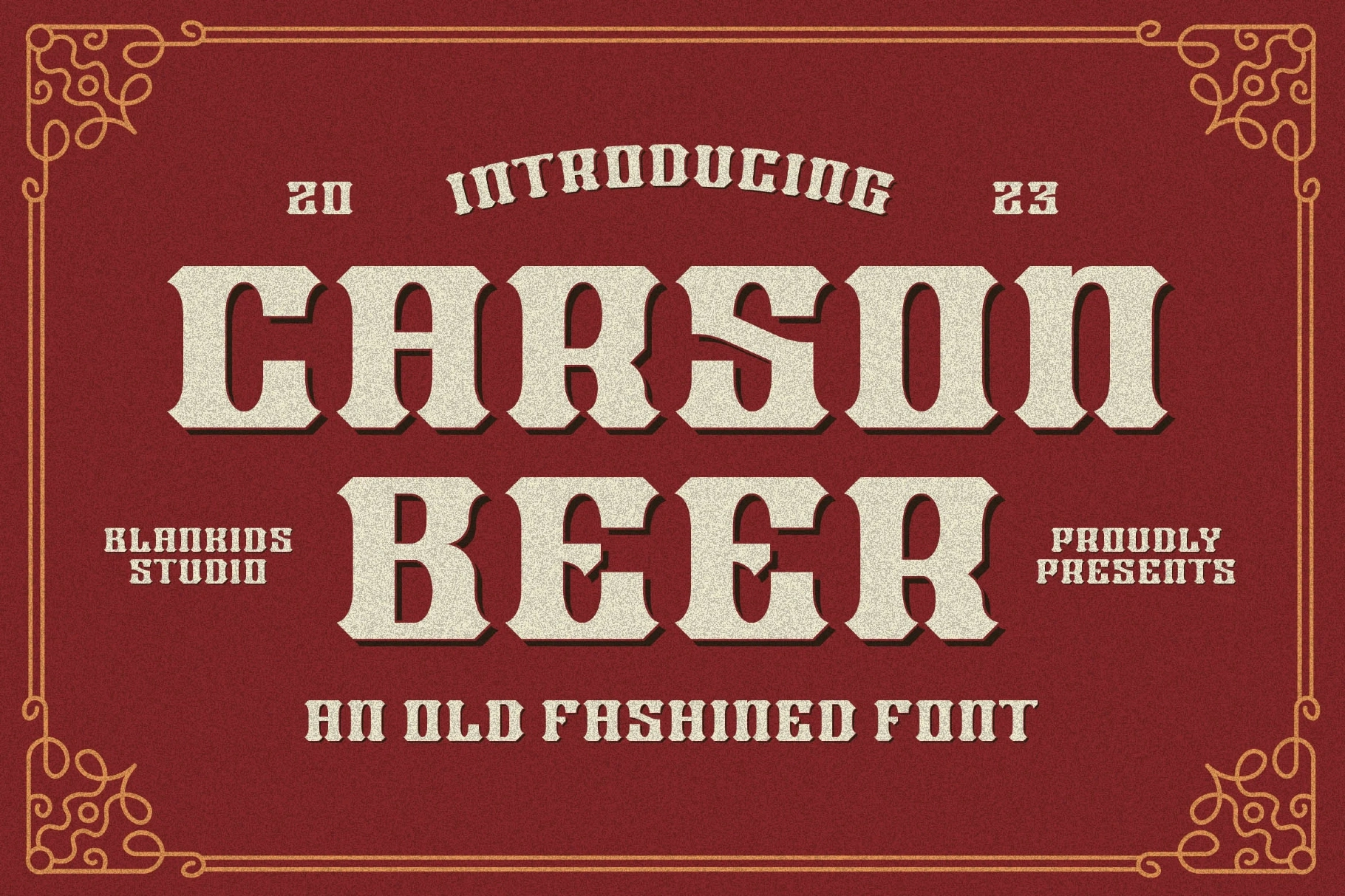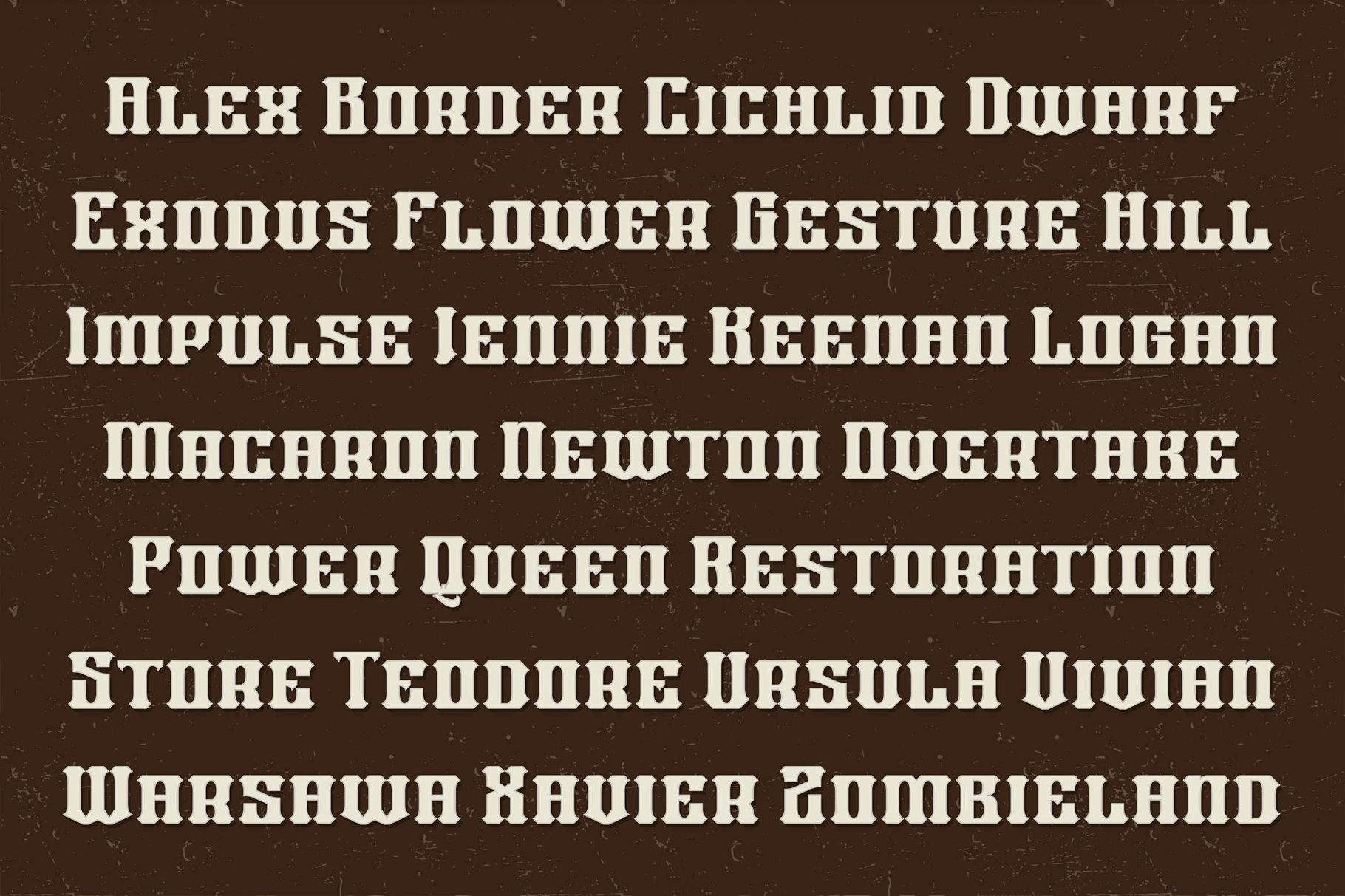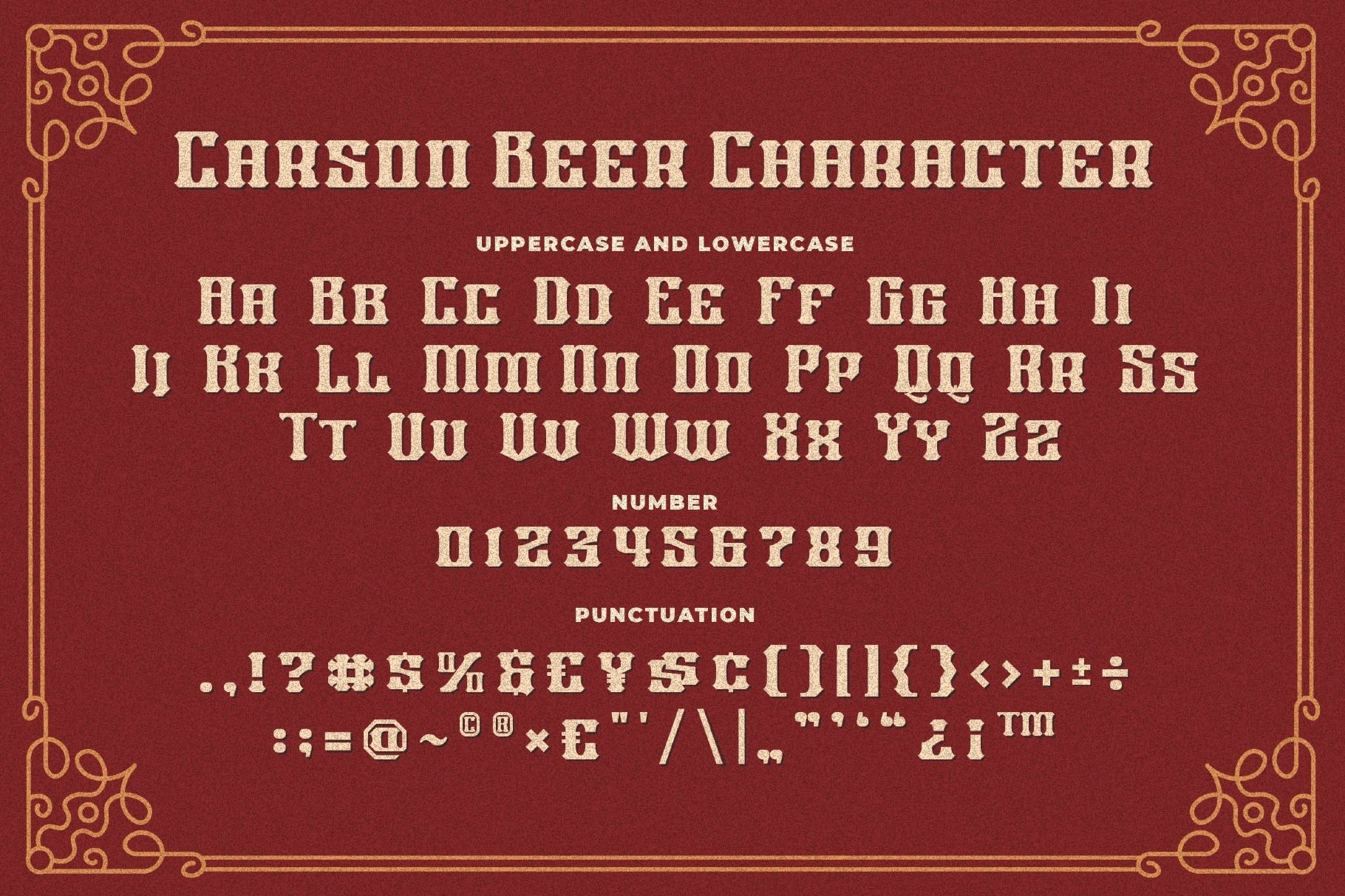
Carson Beer an Old Fashioned Font
Extrude
Carson Beer an Old Fashioned Font is a vintage-inspired display typeface influenced by classic signage and traditional beer label typography. Its bold shapes and old-style character create an authentic retro look that works perfectly for designs with a heritage or handcrafted aesthetic.
With its strong and decorative letterforms, Carson Beer is ideal for posters, packaging, labels, merchandise, book covers, logotypes, and vintage branding projects. The extruded style adds depth and allows you to create eye-catching retro compositions with a classic old-fashioned feel.
- Uppercase & lowercase characters
- Numbers & punctuation